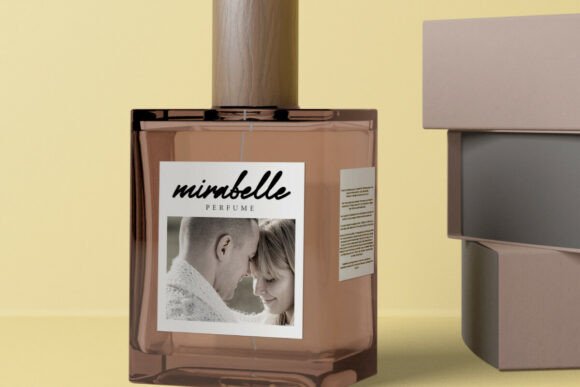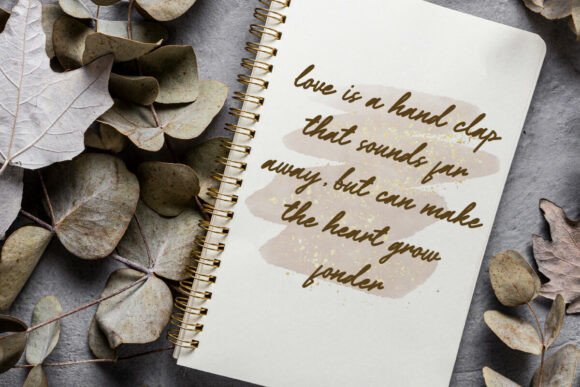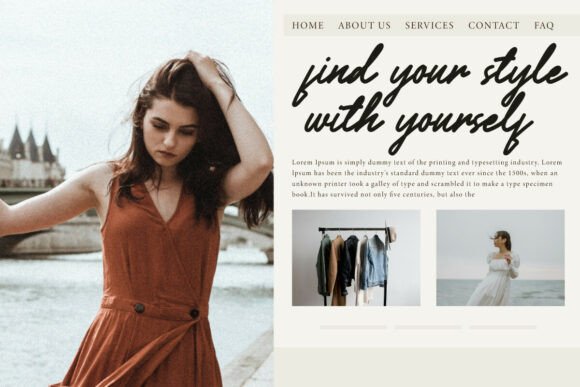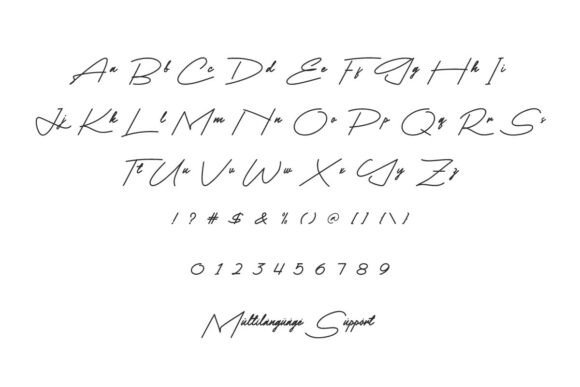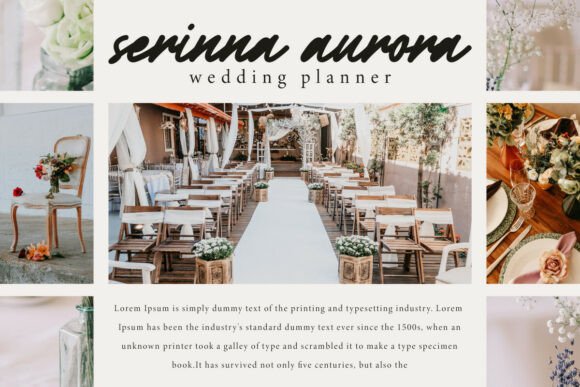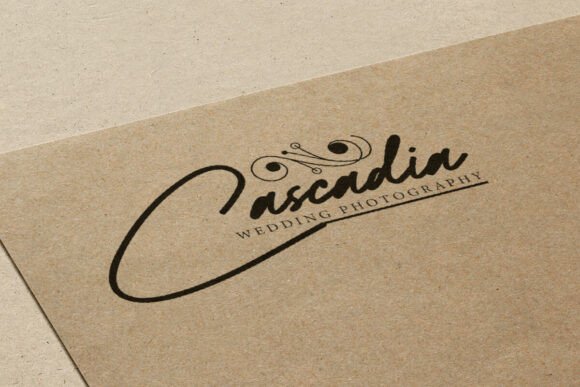
Unleashing the Elegance of the Cahaya Rembulan Font
Imagine you’re browsing through a high-end fashion magazine, and you stumble upon a beautifully crafted headline that makes you pause and admire its beauty. The words seem to dance on the page, with each letter flowing effortlessly into the next. This is the magic of the Cahaya Rembulan font, a sophisticated script that captures the essence of hand-guided pen work.
Designed to evoke modern elegance and organic beauty, the Cahaya Rembulan font is a versatile typeface that’s perfect for luxury brands, high-end editorial layouts, and fashion branding. Its natural rhythm and connected letters make it a standout choice for designers who want to add a touch of sophistication to their work. Whether you’re designing a luxury perfume packaging, a signature logo, or a digital wedding suite, the Cahaya Rembulan font is an excellent choice to convey intimacy, authenticity, and style.
Cahaya Rembulan Font Key Features
- Font Family: A unique and elegant script font, perfect for adding a touch of sophistication to your designs.
- Unique Characteristics: The Cahaya Rembulan font features a unique blend of traditional and modern elements, with intricate flourishes and subtle nuances that set it apart from other script fonts.
Cahaya Rembulan Font Review
I recently had the chance to work with the Cahaya Rembulan font, and I must say it’s a unique and beautiful script font. ✨ The first thing that caught my attention was the elegant and refined feel it gives to any text. It’s perfect for adding a touch of sophistication to wedding invitations, formal letters, or any other design that requires a sense of luxury.
Here are some of the things that work well with Cahaya Rembulan:
- ✨ Elegant and refined feel, perfect for formal designs
- ✨ Beautiful script strokes that add a touch of sophistication
- ✨ Highly customizable, with a wide range of font styles and sizes
- ⚠️ Limited character set, which may cause issues for non-English text
- ⚠️ Can be quite difficult to read in smaller font sizes, which may affect legibility
Overall, I’d say the Cahaya Rembulan font is a great choice for designers who want to add a touch of elegance and sophistication to their work. While it may have some limitations, its unique feel and high customizability make it a valuable addition to any design toolkit.
Tips for Getting the Most Out of Cahaya Rembulan Font
Use the Cahaya Rembulan font to add a touch of elegance and sophistication to your designs.
Pair it with other elegant fonts to create a cohesive look.
The Cahaya Rembulan font is ideal for:
Formal event invitations and announcements
Editorial and publishing design
Alternatives to Cahaya Rembulan Font for Designers
Pacifico is a beautiful, elegant script font that is perfect for adding a touch of sophistication to your designs. It’s ideal for use in branding, advertising, and editorial content where a more refined and luxurious feel is desired.
Compared to Cahaya Rembulan Font, Pacifico has a more polished and refined look, making it suitable for high-end designs. It also has a more extensive character set and better support for various languages.
Great Vibes is a modern, handwritten font that is perfect for adding a personal and creative touch to your designs. It’s ideal for use in social media graphics, blog posts, and other digital content where a more relaxed and casual feel is desired.
Q: Does the Cahaya Rembulan Font include any special characters or accents?
Yes, the Cahaya Rembulan Font includes a wide range of special characters and accents, including international characters, punctuation marks, and ligatures. This ensures that you can use the font to create text in multiple languages and styles.